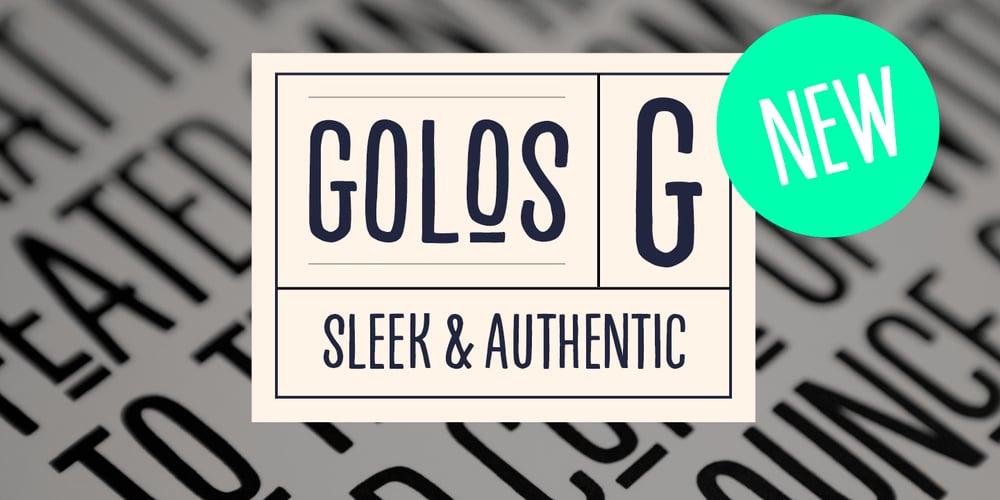
Golos Font Family was designed by Ossi Gustafsson and published by Hiekka Graphics. Golos contains 2 styles and family package options. Golos is a sleek and authentic font face with two styles: regular and italic. Golos is recommended for use as a display typeface.